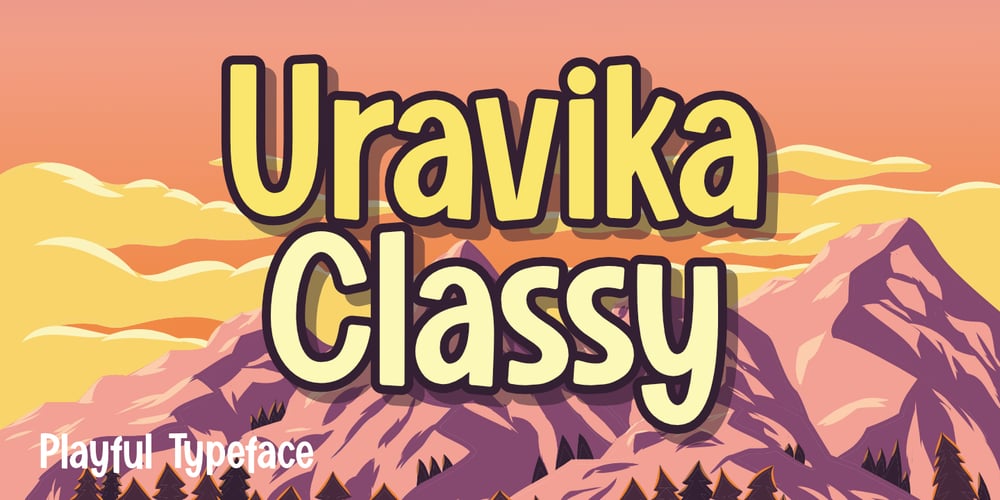
Uravika Classy
Uravika Classy font
Uravika Classy Font Family was designed by Toni Dzulham and published by Dumadi. Uravika Classy contains 1 styles and family package options. URAVIKA CLASSY is a font with colorful nuances in your designs. In this amazing font you can collaborate with projects such as t-shirt designs, logos, book designs, titles, advertisements, social media branding, event titles and others. I hope you have a nice day, keep your spirits up, greetings Toni Dzulham -Dumadistyle 2020